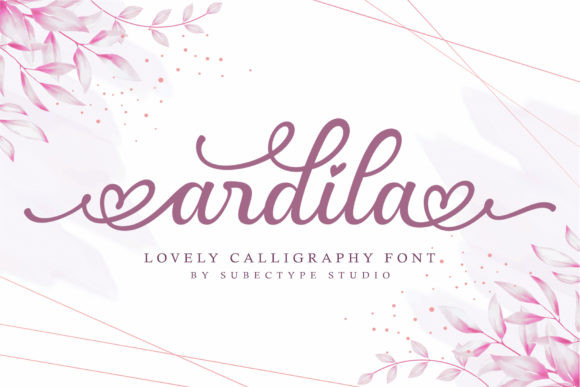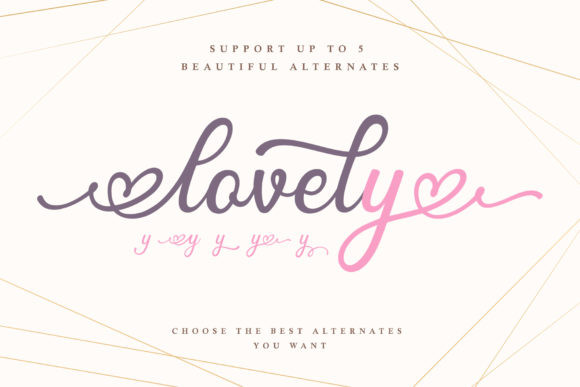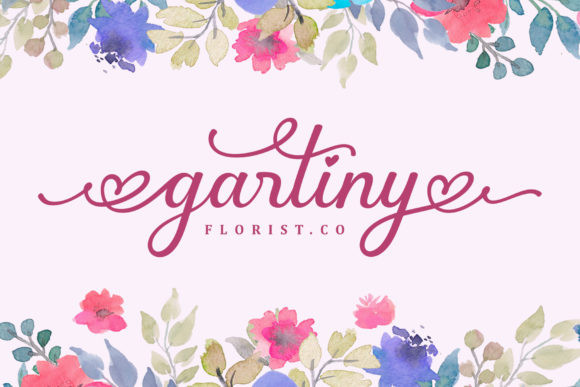
Ardila Lovely Font
Ardila feels lovely and romantic and makes an outstanding calligraphy font. It features incredibly whimsical heartsy swashes that will add a decorative touch to any craft design in an instant,